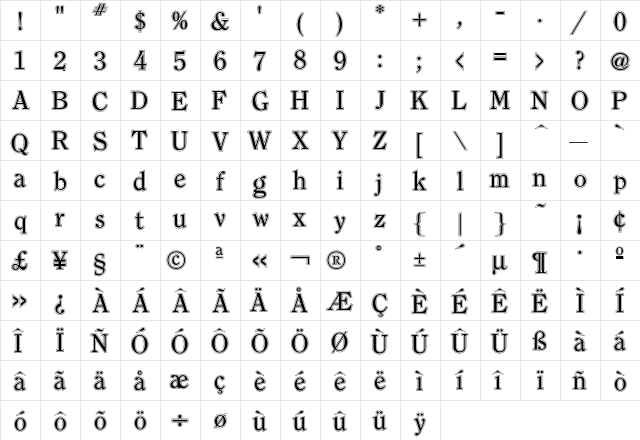
Clearface Contour
Design Context for Clearface Typeface
Clearface takes a measured approach to typography — its balanced proportions and neutral character make it a reliable workhorse for both digital and print work.